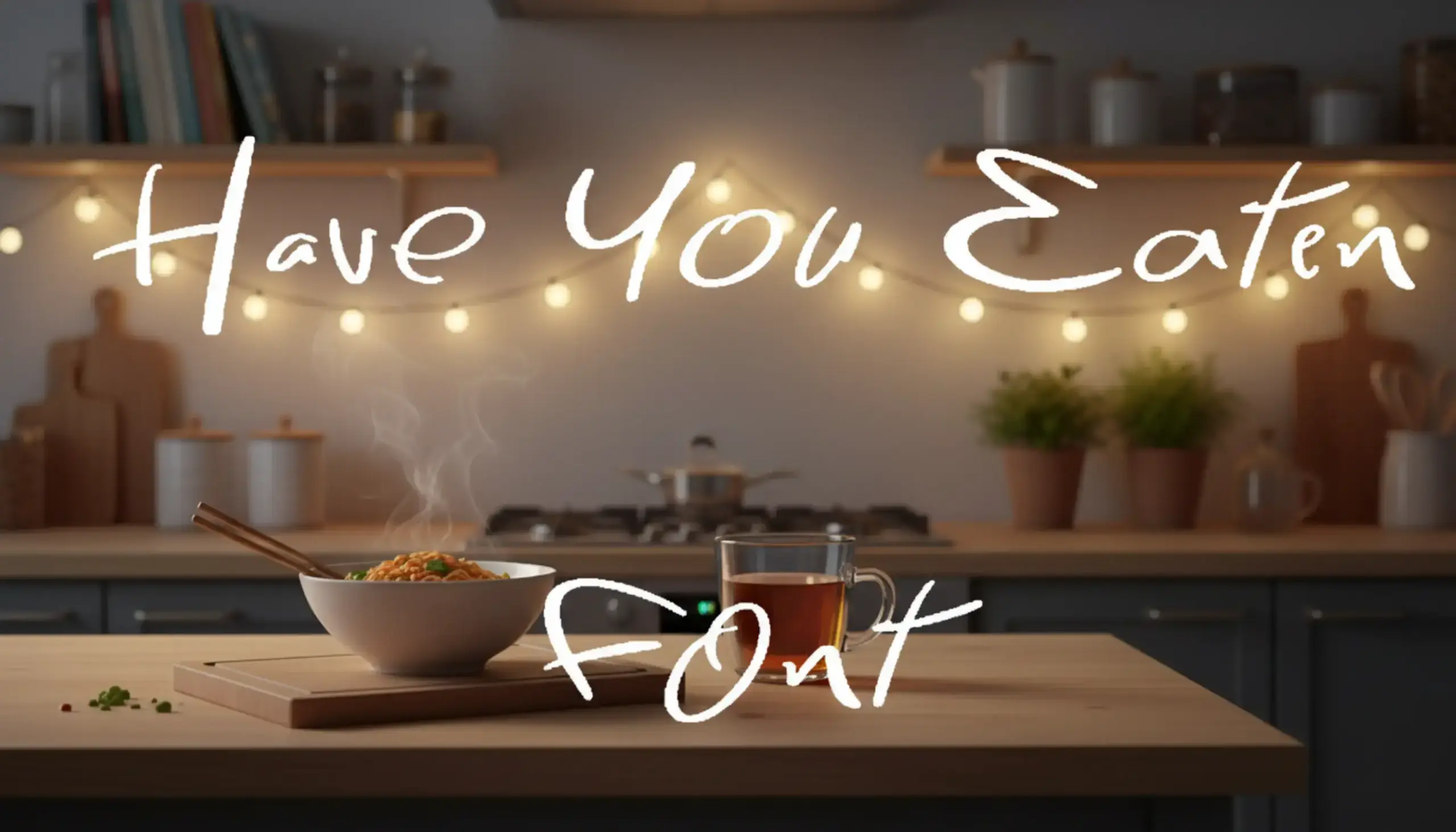
Have You Eaten Font
Have You Eaten is a handwritten font designed by Roland Huse. It looks like someone actually wrote it by hand: relaxed, friendly and a little imperfect in a good way. It's a free download, and you can try it with your own text in the preview above first.
What You Can Type With Have You Eaten
Have You Eaten covers the full alphabet in upper and lowercase, plus all ten numbers, so you can set names, dates and prices without switching fonts. Common punctuation such as !, ?, @ and # is included as well. It doesn't include accented letters such as é or ñ, which makes it an English-only font.
Where Have You Eaten Works Best
Think of Have You Eaten for greeting cards, journal pages and friendly social posts. Set it a bit larger than you would a normal text font. Handwriting styles lose their charm once they get too small to read comfortably.
Does Have You Eaten support accented letters?
No. Have You Eaten has no accented letters such as é, ñ or ü, so it's best for English text.